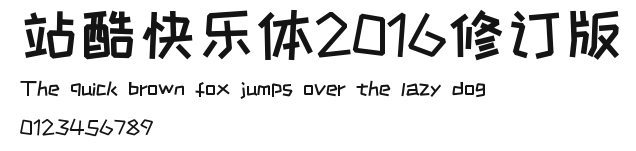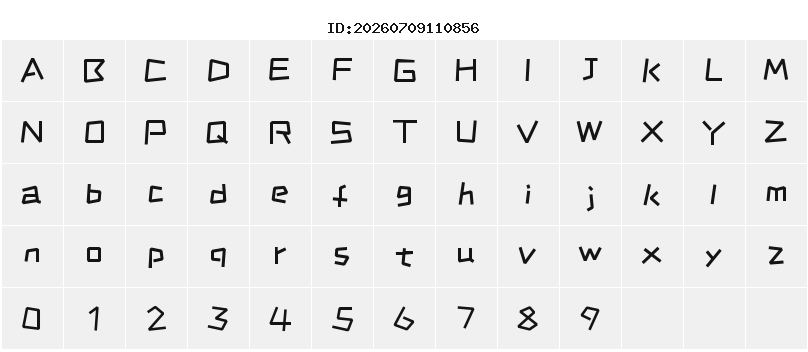
• Font Name: 站酷快乐体2016修订版
• Full Font Name: 站酷快乐体2016修订版
• PostScript Name: HappyZcool-2016
About 站酷快乐体2016修订版.ttf
站酷快乐体2016修订版.ttf is a modern, elegant sans-serif font designed for ultimate readability and visual harmony. Perfect for branding, headlines, web design, and print materials.